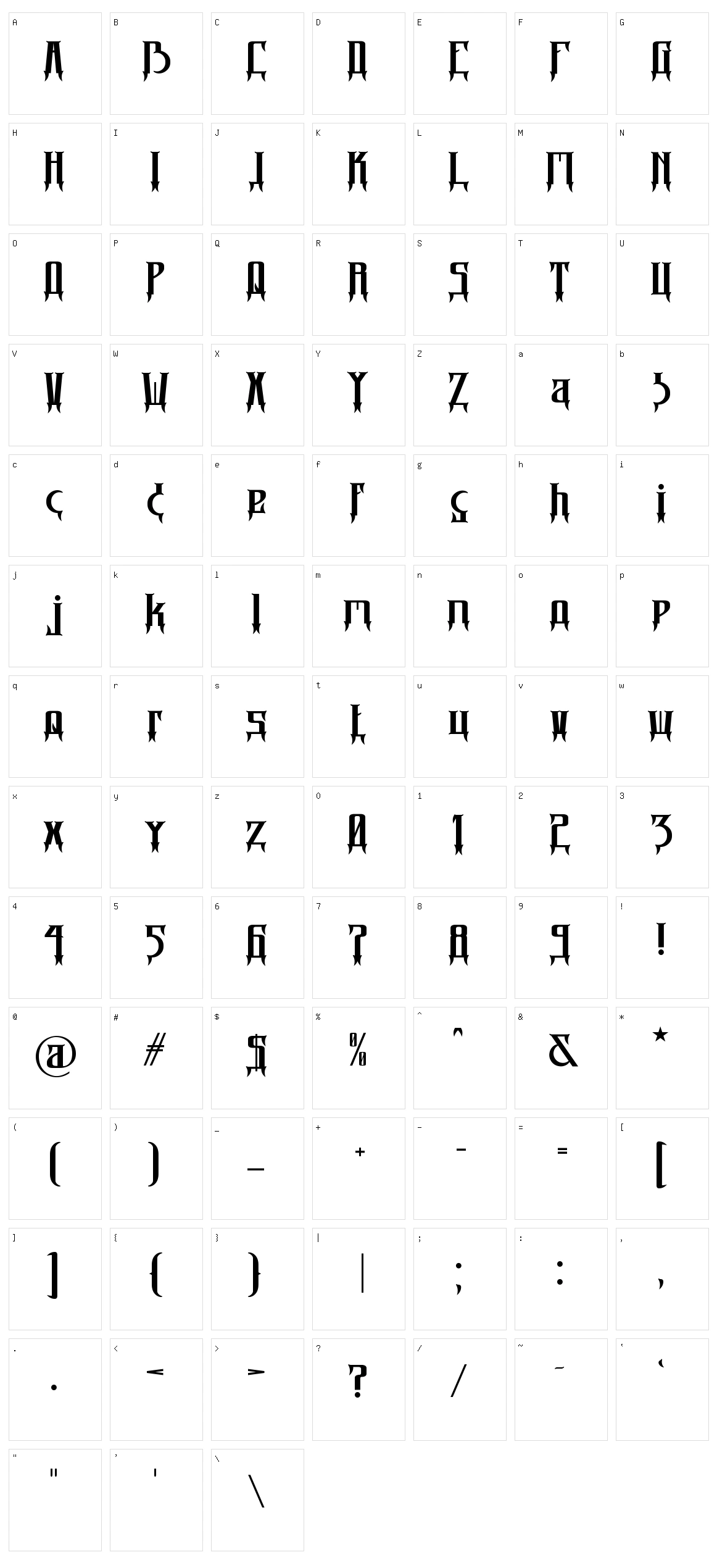
The free font Carannorov Sigil is carefully designed by Typesgal, showcasing a thoughtful balance of creativity and usability and falls under the Russian font style. When you download the ZIP file, it contains only 24.37 KB of font files, making it lightweight and quick to download. Please review the license details below to understand permitted usage and distribution rights. If license information is not available, we recommend using this font for personal projects only or contacting the author directly for commercial usage permissions.